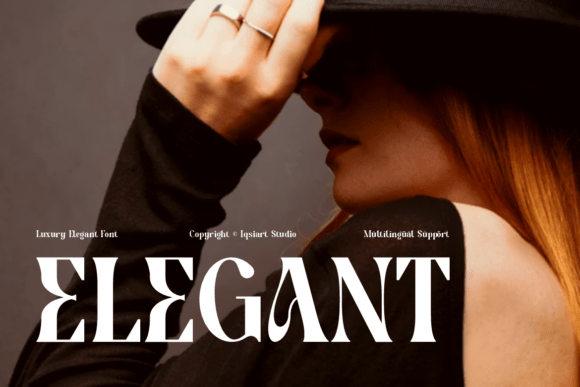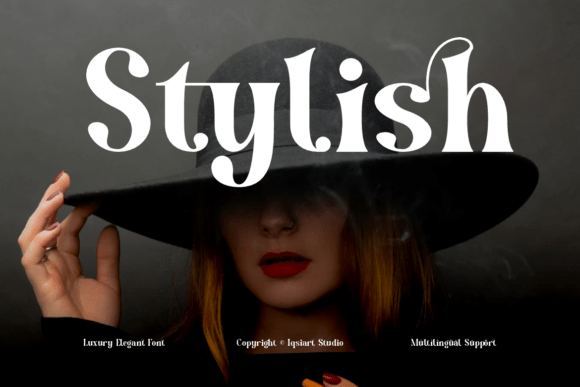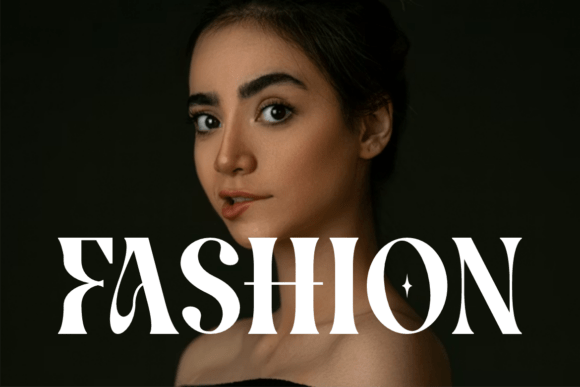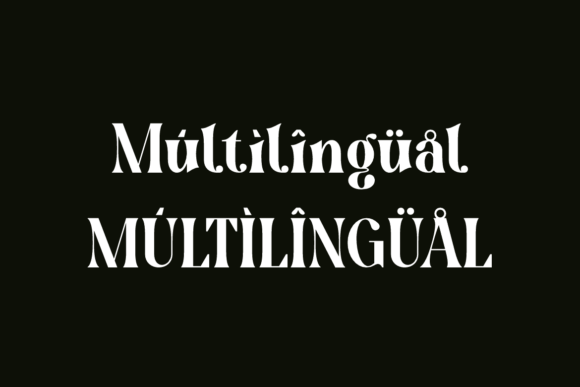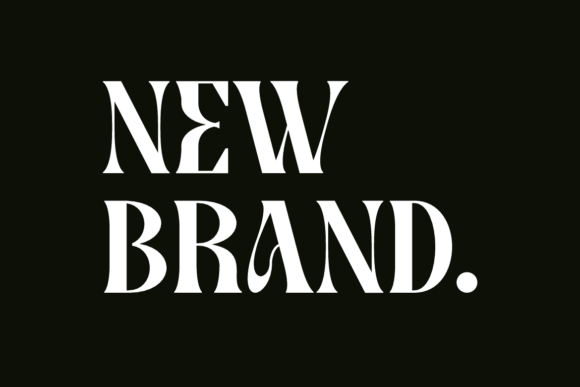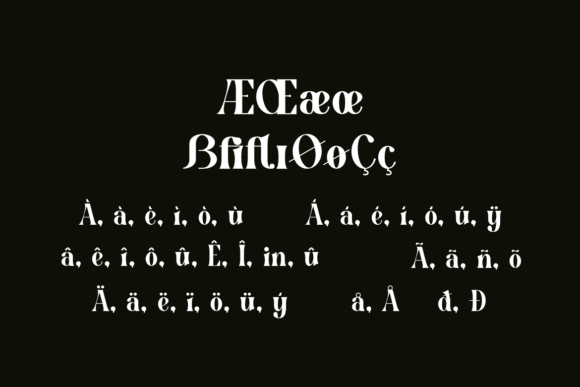
Introducing Arkity Qillgar Font: Elevate Your Designs with Elegance and Versatility
In the world of typography, finding the perfect font that combines elegance, authenticity, and versatility can be a daunting task. However, for designers and crafters looking for a serif and authentic display typeface that suits a variety of design needs, look no further than the Arkity Qillgar Font. This beautifully crafted font is designed to elevate your designs, offering a wide range of themes and font styles to explore.
What is Arkity Qillgar Font?
Arkity Qillgar Font is a meticulously designed serif typeface that exudes sophistication and elegance. Its authentic display style makes it an ideal choice for projects that require a touch of classic charm with a modern twist. Whether you’re working on a branding project, a website design, or crafting beautiful print materials, Arkity Qillgar Font is the perfect companion to help you achieve your creative vision.
Key Features of Arkity Qillgar Font
- Serif and Authentic Display Typeface: The font’s serif design adds a touch of sophistication and elegance to any project, making it perfect for titles, headings, and display text.
- Versatile Design: With its versatile design, Arkity Qillgar Font can be used across a variety of themes and design projects, from modern digital platforms to traditional print materials.
- Multilingual Support: The font offers multilingual support, ensuring that your designs can reach a global audience. Whether you’re designing for English or any other language, Arkity Qillgar Font has got you covered.
Font Styles and Varieties
Why Choose Arkity Qillgar Font?
There are countless reasons why designers and crafters choose Arkity Qillgar Font for their projects. Here are just a few:
- Elegance: The font’s elegant design makes it perfect for projects that require a touch of sophistication.
- Readability: Despite its elegant and authentic display style, Arkity Qillgar Font remains highly readable, even at smaller sizes.
- Versatility: Its versatile design allows it to be used across a range of projects, from digital designs to print materials.